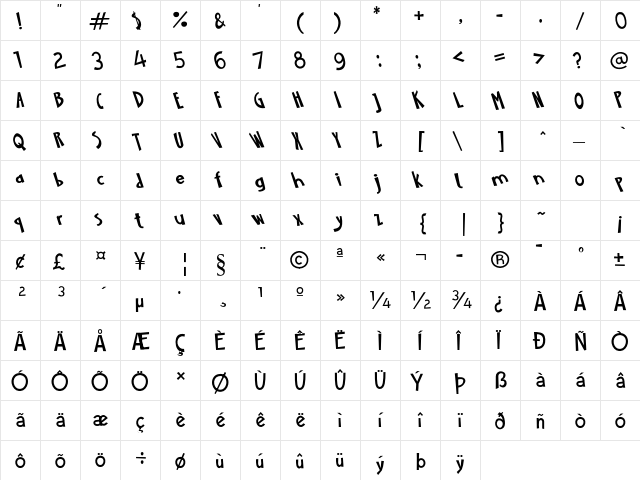
Beach Party Cartoon Regular
Design Context for Beach Party Cartoon Typeface
Beach Party Cartoon has an approachable, lighthearted character — its loose, expressive forms are well-suited to children's content, casual branding, and fun-first design.
Font Pairing: Pairs well with a rounded or humanist sans for body copy, maintaining the friendly tone without relying on Beach Party Cartoon to carry extended reading.
Pro Tip: Avoid using Beach Party Cartoon for long passages of text — it works best for headlines, labels, and short calls to action.